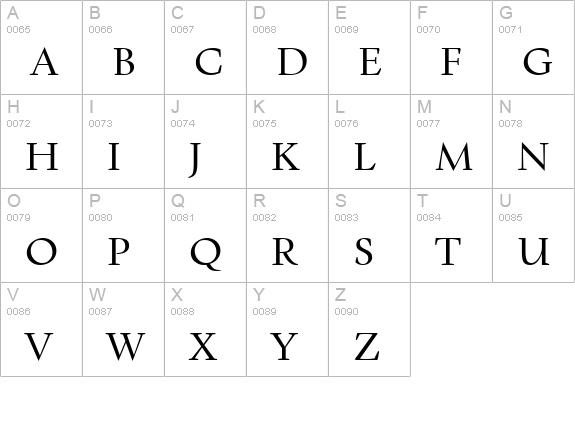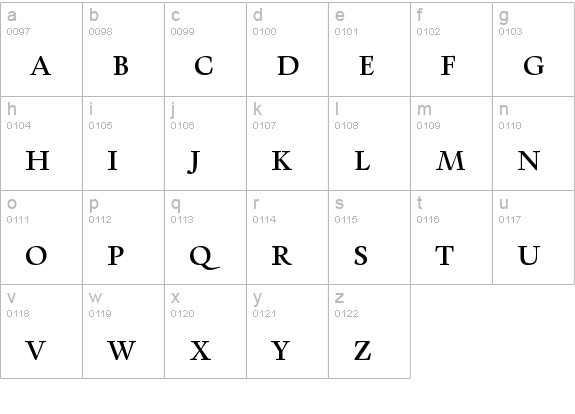
KennedySC Book GD Font Details
KennedySC Book GD is a comfortable, highly readable variant in the KennedySC typeface family \xE2\x80\x94 well suited to long-form body text, articles, and editorial content.
Introducing KennedySC Book GD font, a stunning typeface designed to captivate and inspire. With its elegant and refined appearance, this font is perfect for adding a touch of sophistication to any project. Whether you're creating a logo, designing a website, or crafting a brochure, KennedySC Book GD font will elevate your work to new heights. This font features a balanced combination of sharp edges and smooth curves, creating a harmonious and visually pleasing aesthetic. Its clean and legible design ensures that your message is effortlessly conveyed to your audience. One of the best parts about KennedySC Book GD font is that it is available for free! That's right, this exceptional font can be freely downloaded at FontsMarket.com. Now, you can enhance your designs without breaking the bank. It's a win-win situation! So why wait? Download KennedySC Book GD font today and unlock a world of creative possibilities. Elevate your designs, impress your clients, and stand out from the crowd with this remarkable typeface. Don't miss out on this incredible opportunity to enhance your projects with a font that combines elegance and functionality. Get your hands on KennedySC Book GD font now, and let your creativity soar!